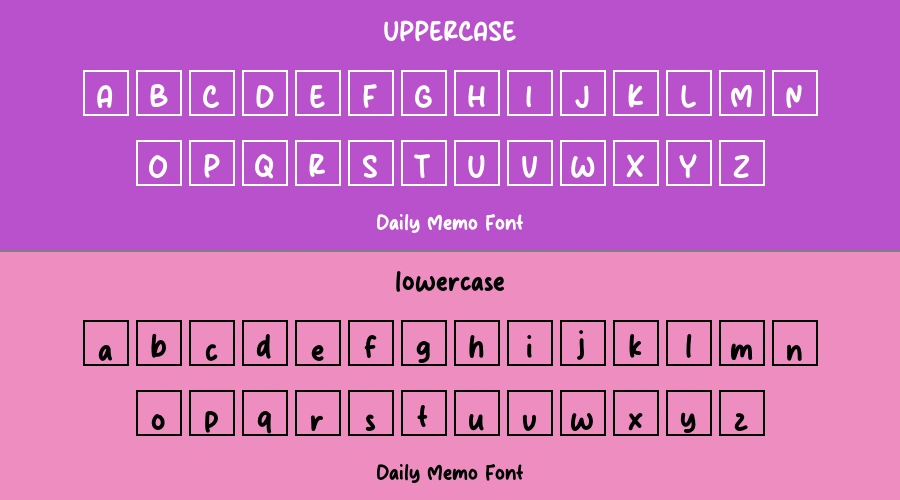
About Daily Memo Font
When typographic excellence matters most, Daily Memo Font delivers through its thoughtful blend of rounded apexes and visual impact. Specially crafted for medical texts, it offers the authenticity and brand alignment required for sophisticated design work. Every detail serves a purpose.
The character set showcases thoughtful details like tapered strokes alongside functional dingbat elements. This proves especially valuable in research articles, where purchase influence directly influences results. Particular attention was paid to proportion and cultural relevance during development.
Daily Memo Font |